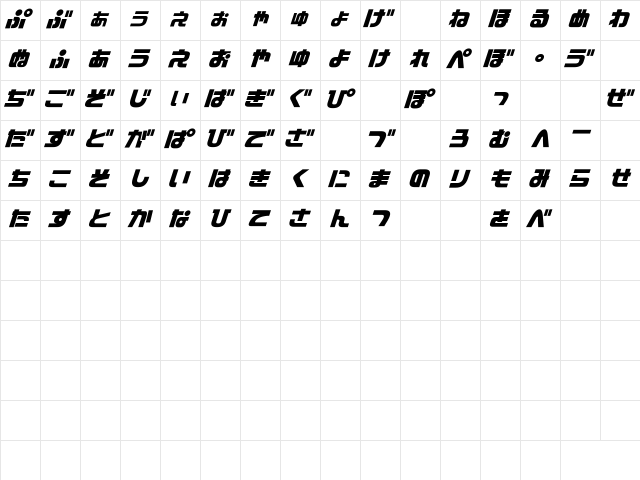
D3 Cozmism Hiragana Oblique Regular
Design Context for D3 Cozmism Hiragana Oblique Typeface
D3 Cozmism Hiragana Oblique is a composed and adaptable typeface that performs quietly and consistently across a wide range of design contexts. The slanted form adds forward momentum and visual energy.
Pro Tip: Try D3 Cozmism Hiragana Oblique for annotation and caption copy alongside an upright companion — the contrast in angle creates a dynamic but ordered typographic system.